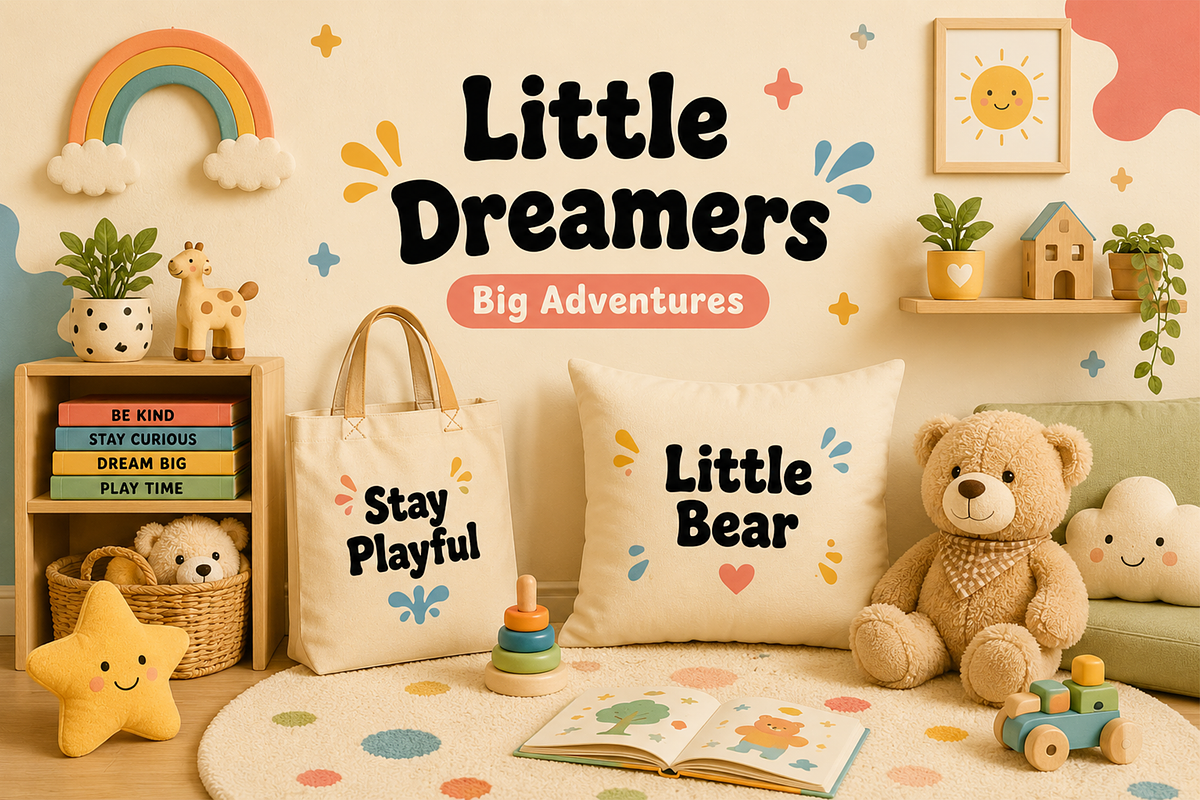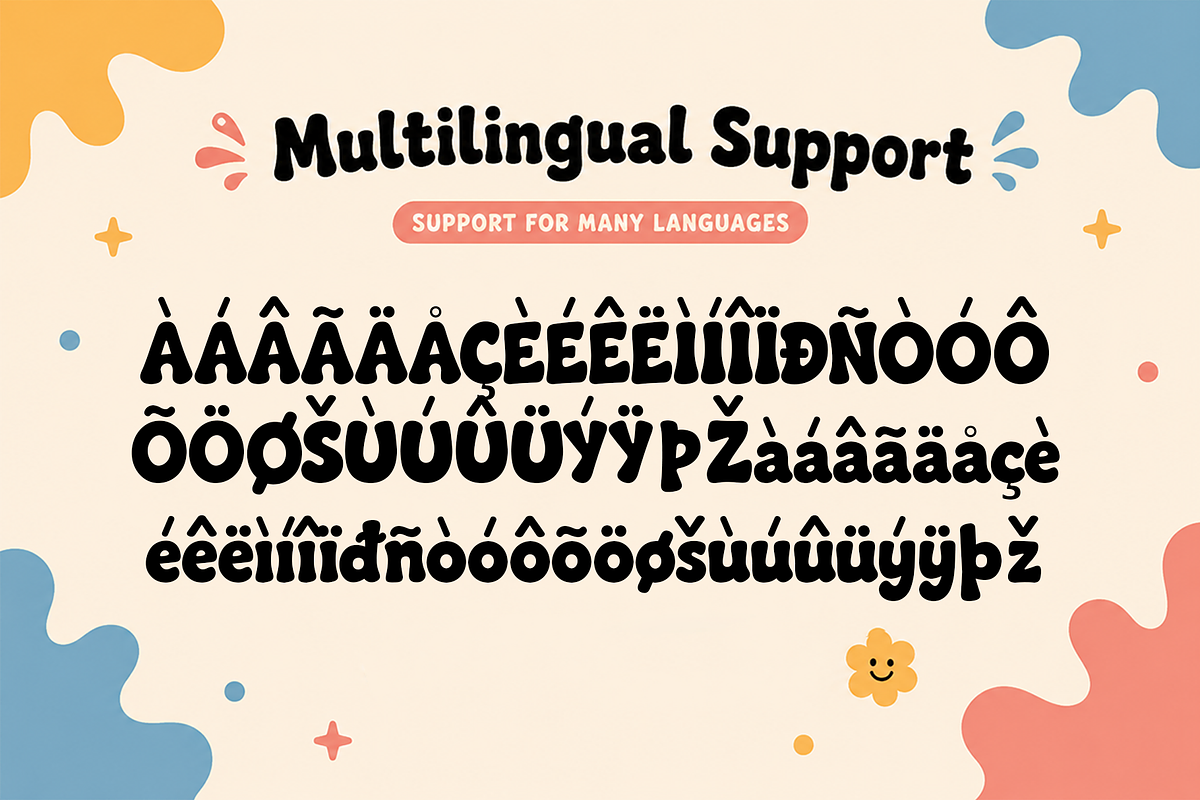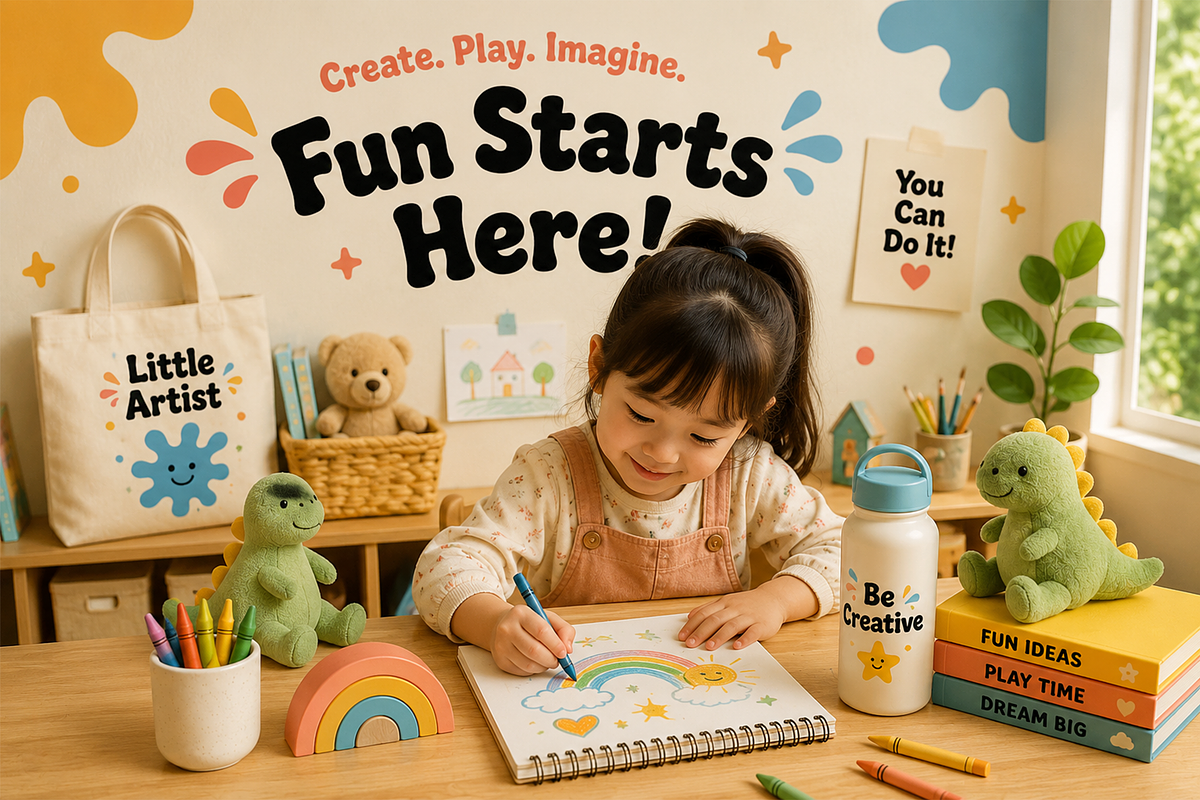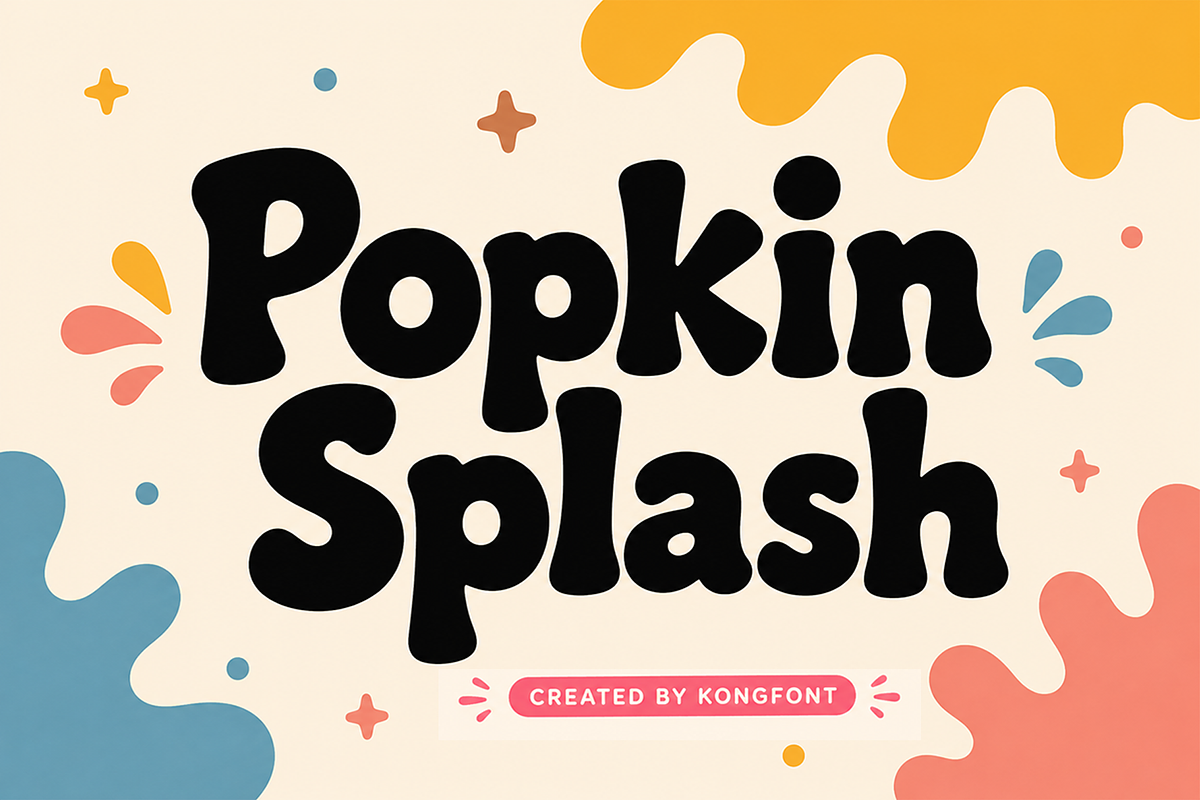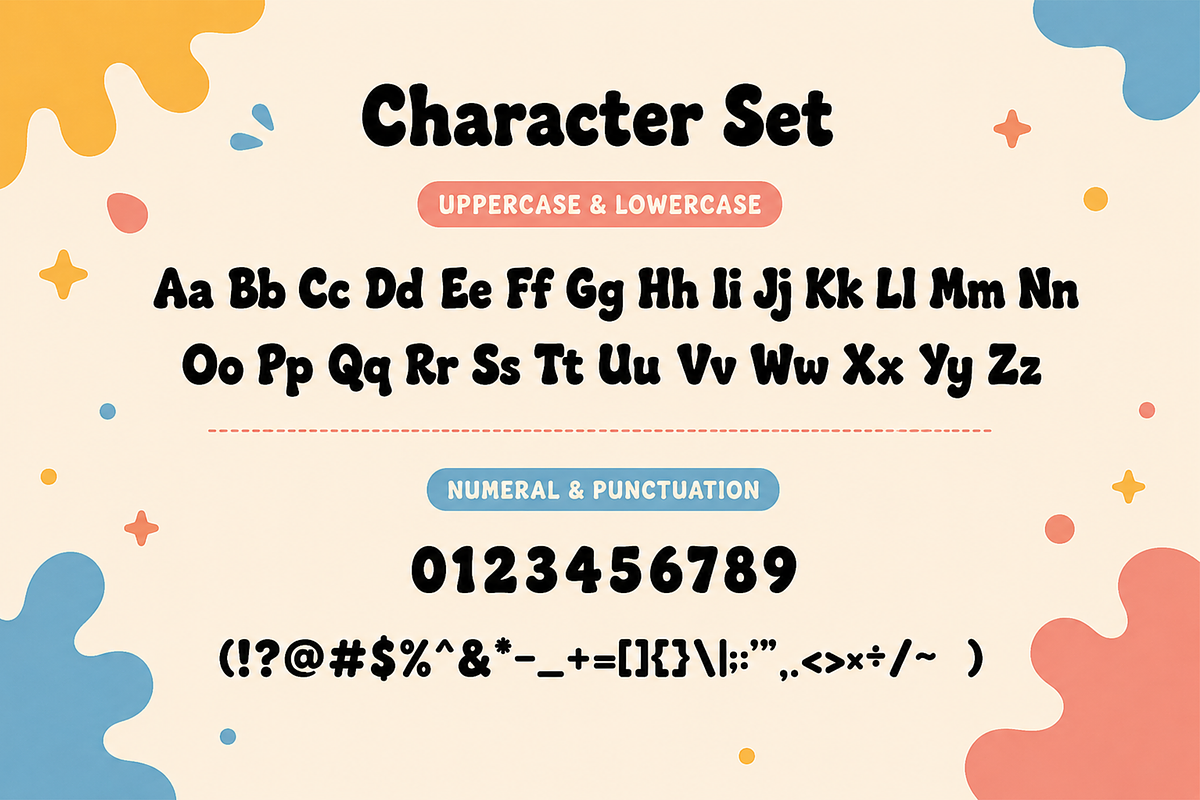
Popkin Splash - Modern Kids Font
Meet Popkin Splash, a modern kids font designed to bring energy, creativity, and playful charm to your projects. With its bold, friendly letterforms and cheerful personality, this typeface captures the joyful spirit of childhood while maintaining excellent readability. Its lively style makes it perfect for creating designs that instantly grab attention and spark excitement.
Carefully crafted for versatility, Popkin Splash includes uppercase and lowercase letters, numerals, punctuation, symbols, and multilingual support. Its playful yet balanced structure allows it to work beautifully across print and digital applications, making it a valuable addition to any designer’s font collection.